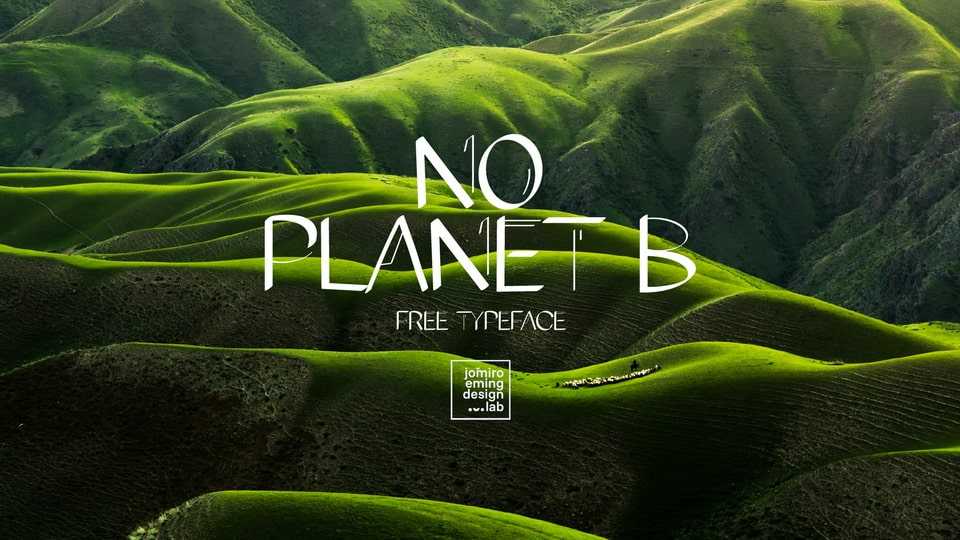
Download No Planet B font, a hand-drawn sans serif typeface that beautifully balances contrast strokes with a natural, organic feel, creating a look that’s both artistic and approachable.
Designer: Jomiro Eming